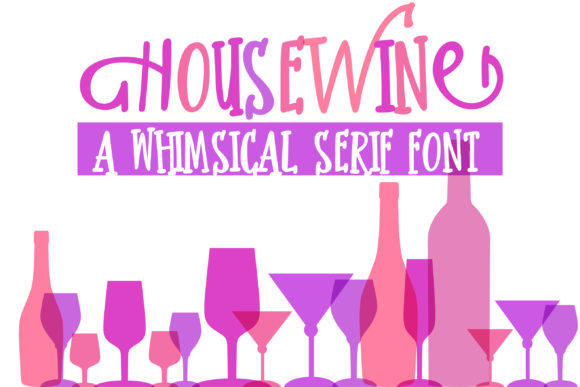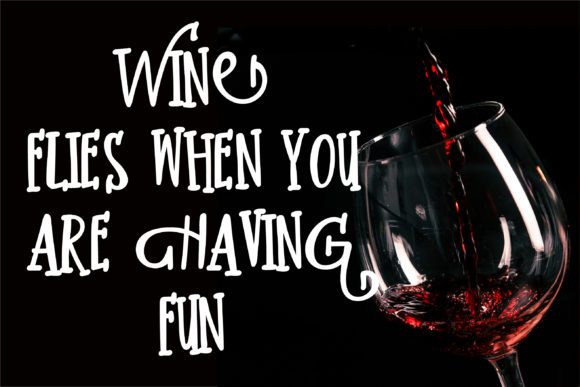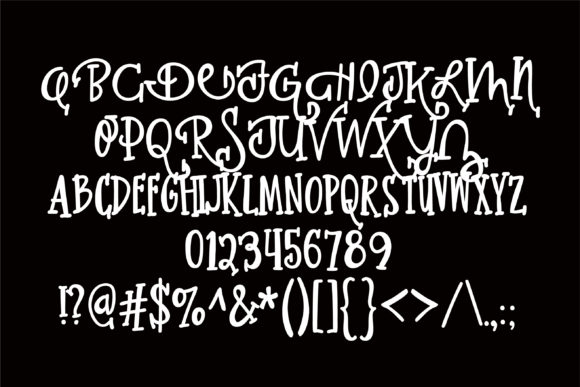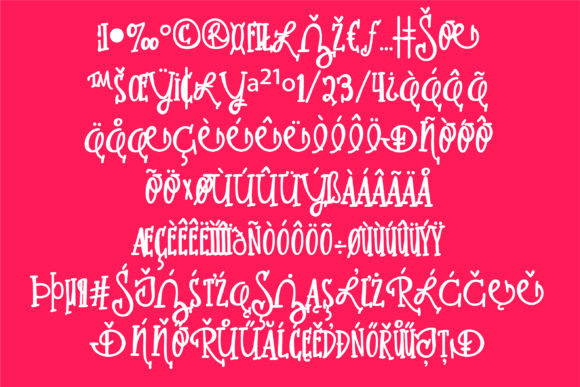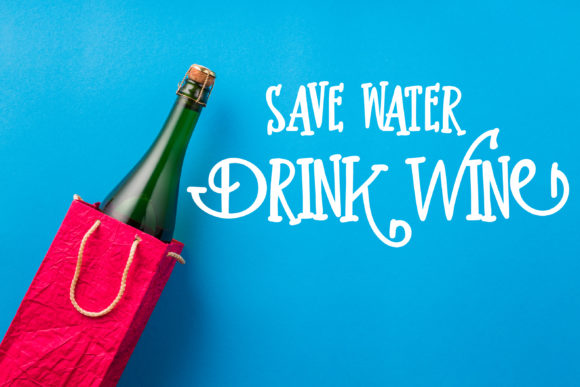
Housewine Font
About Housewine Font
This hip, yet whimsical serif font is like getting two fonts in one. The uppercase is a more decorative case that works best to begin or end words. The lowercase is simplistic.